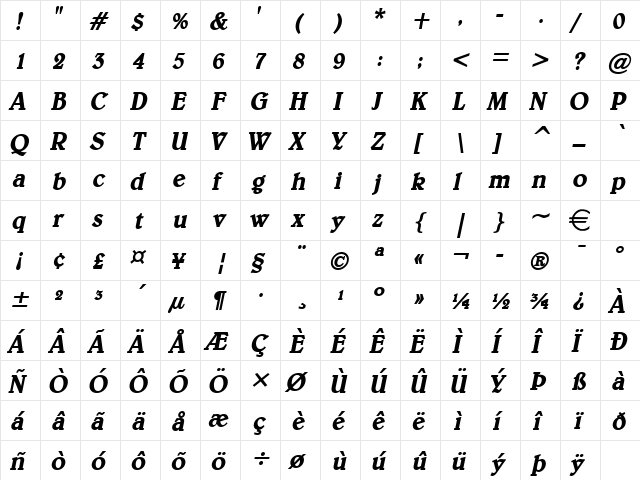
Blew BoldItalic Font Preview
Blew BoldItalic
Design Context for Blew Typeface
Blew takes a measured approach to typography — its balanced proportions and neutral character make it a reliable workhorse for both digital and print work. Its italic angle brings a sense of urgency and motion to the letterforms. Its bold stroke weight gives it real presence on the page.
Pro Tip: Use Blew for emphasis, pull quotes, and subheadings where its slanted energy can add rhythm to the layout.